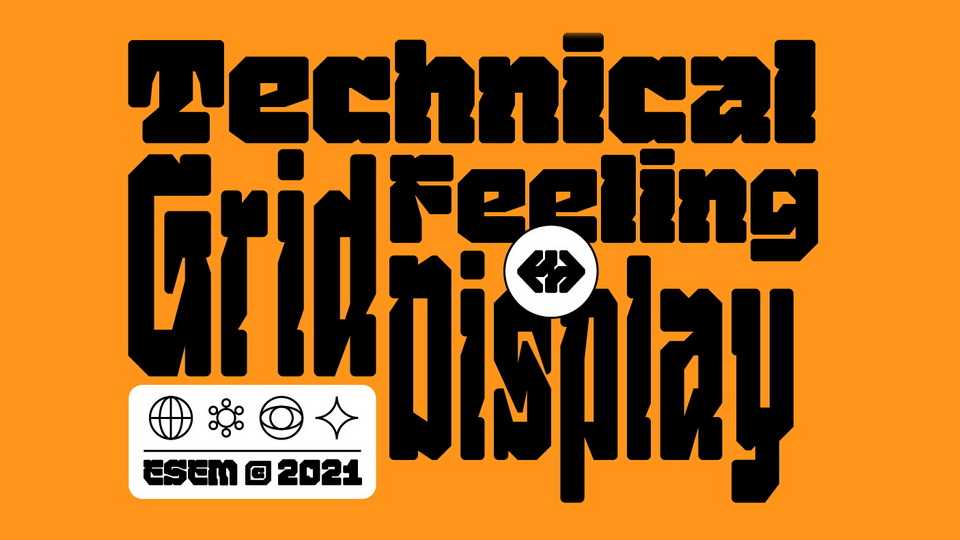
Download Nounas font, a display typeface inspired by Stanislaw Lem’s novels „Solaris” and „Futurological Congress”. The main space in which Nounas font is supposed to find itself is technology and ambiguity.
Designer: Szymon Marciniak